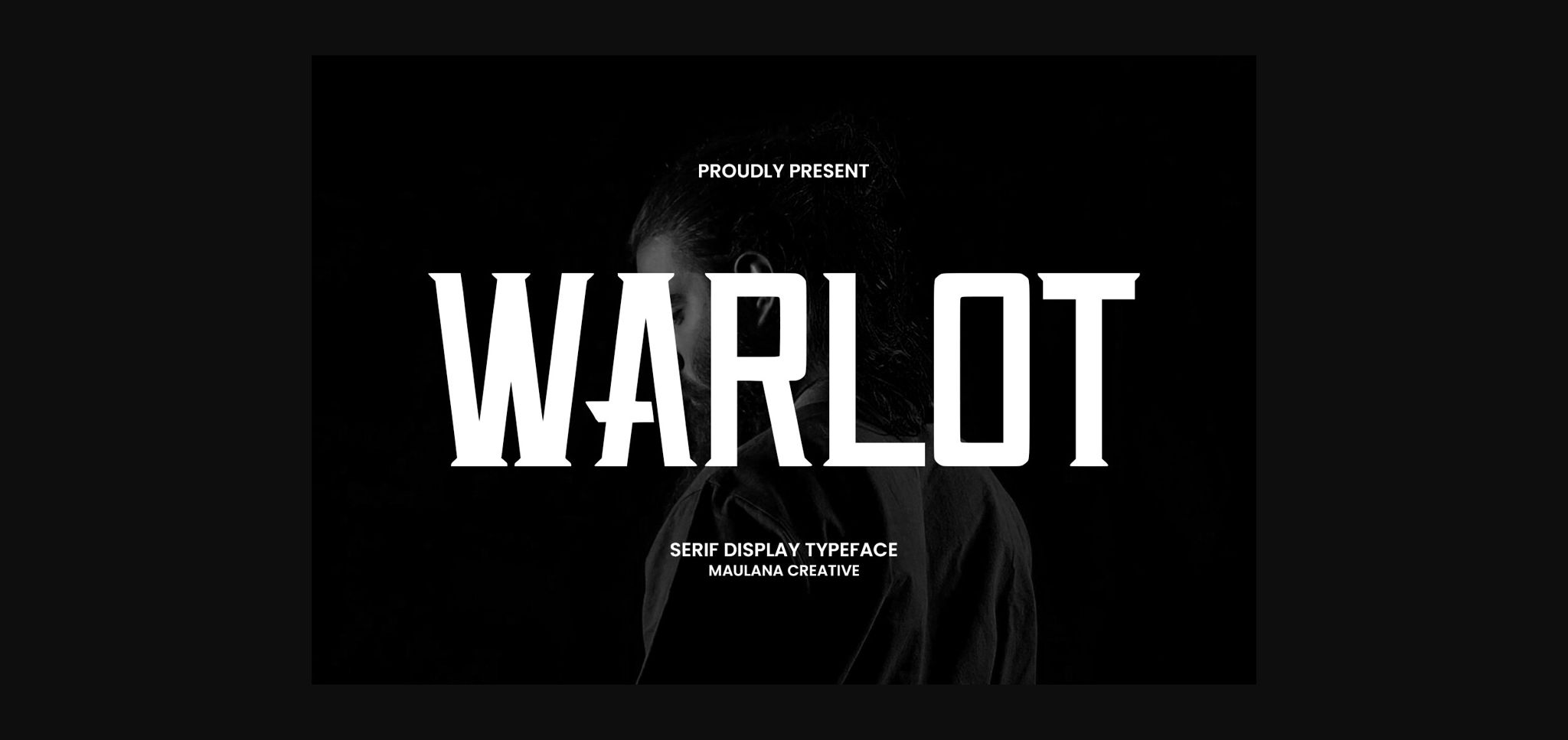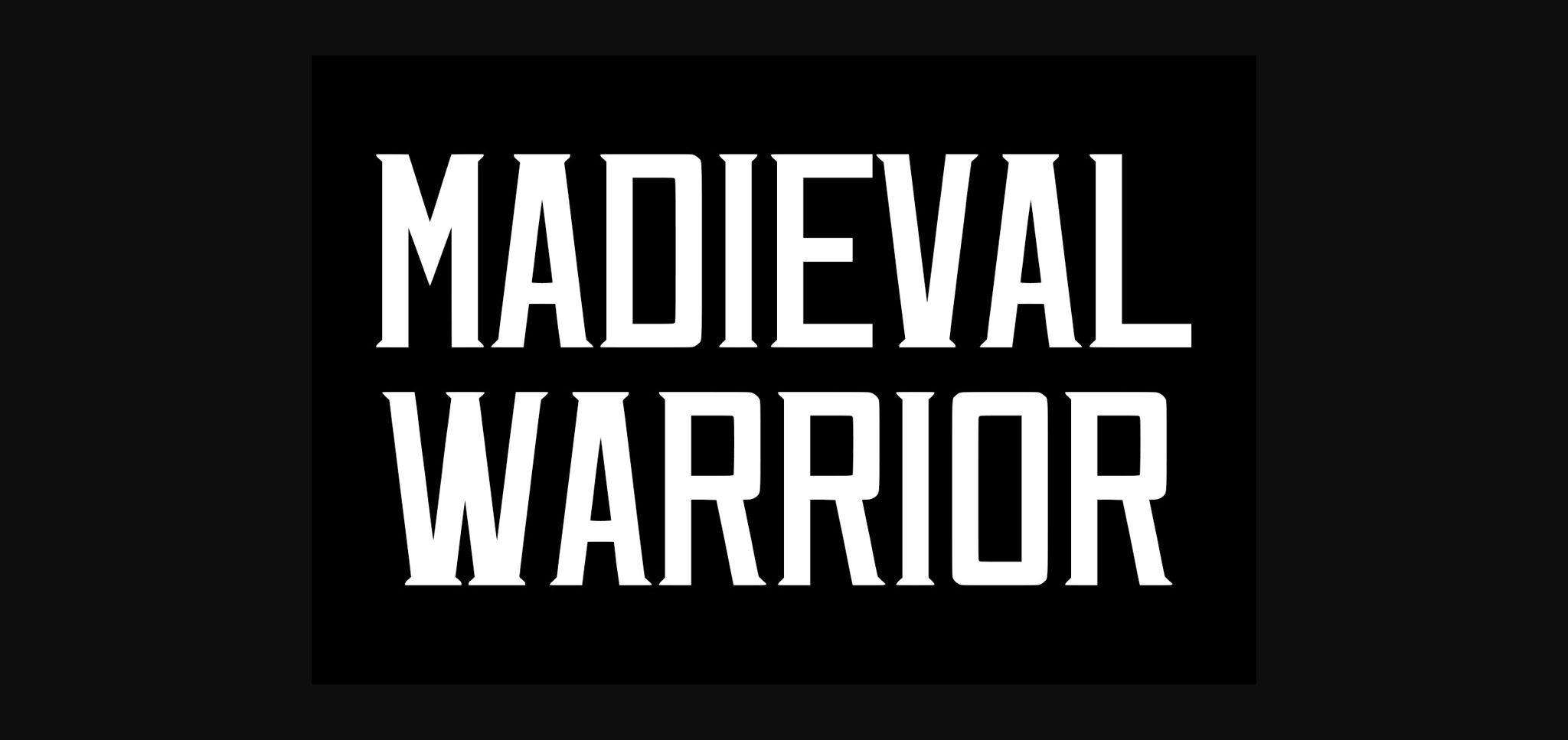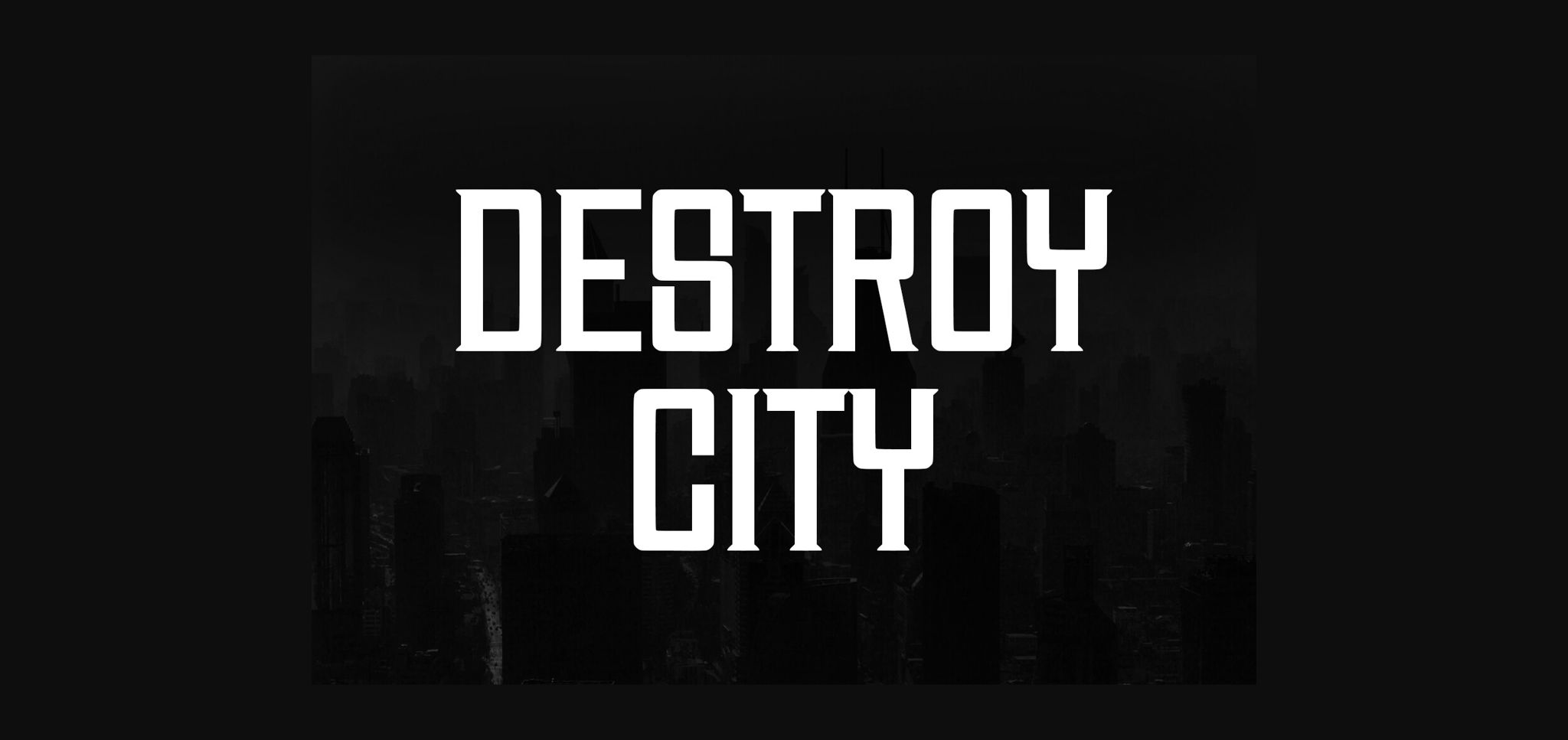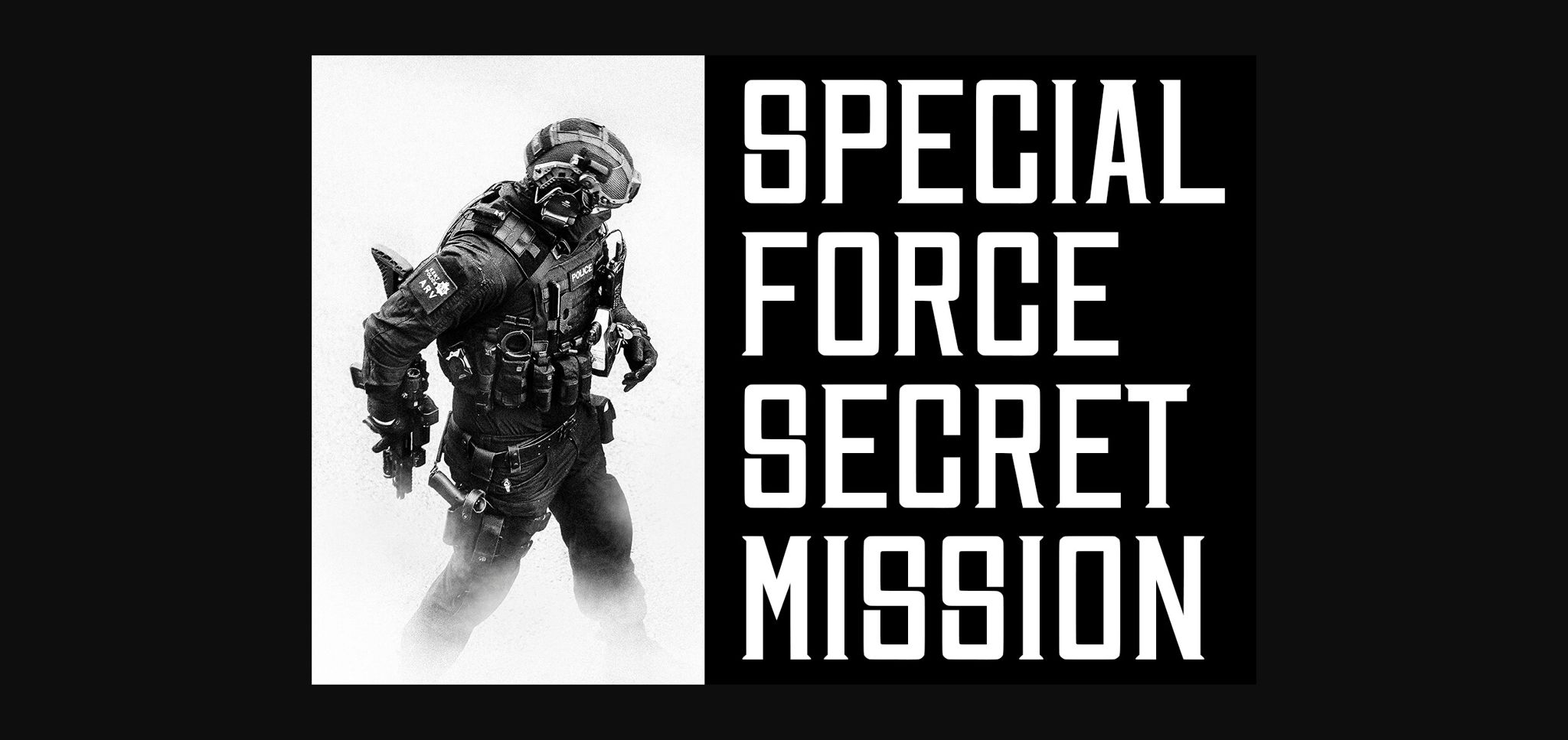
About Warlot Font
Warlot is a bold and assertive sans serif font. No matter the topic, this font will be an incredible asset to your fonts’ library, as it has the potential to elevate any creation.